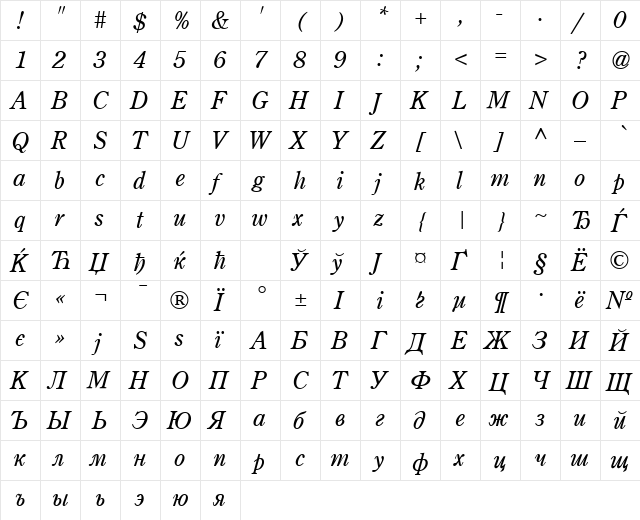
AGCenturion Italic
Design Context for AGCenturion Typeface
AGCenturion offers clean, dependable letterforms without strong stylistic allegiance, making it a practical choice for designers who need flexibility. The dynamic lean of this cut emphasises speed and emphasis in any layout.
Pro Tip: Use AGCenturion for emphasis, pull quotes, and subheadings where its slanted energy can add rhythm to the layout.